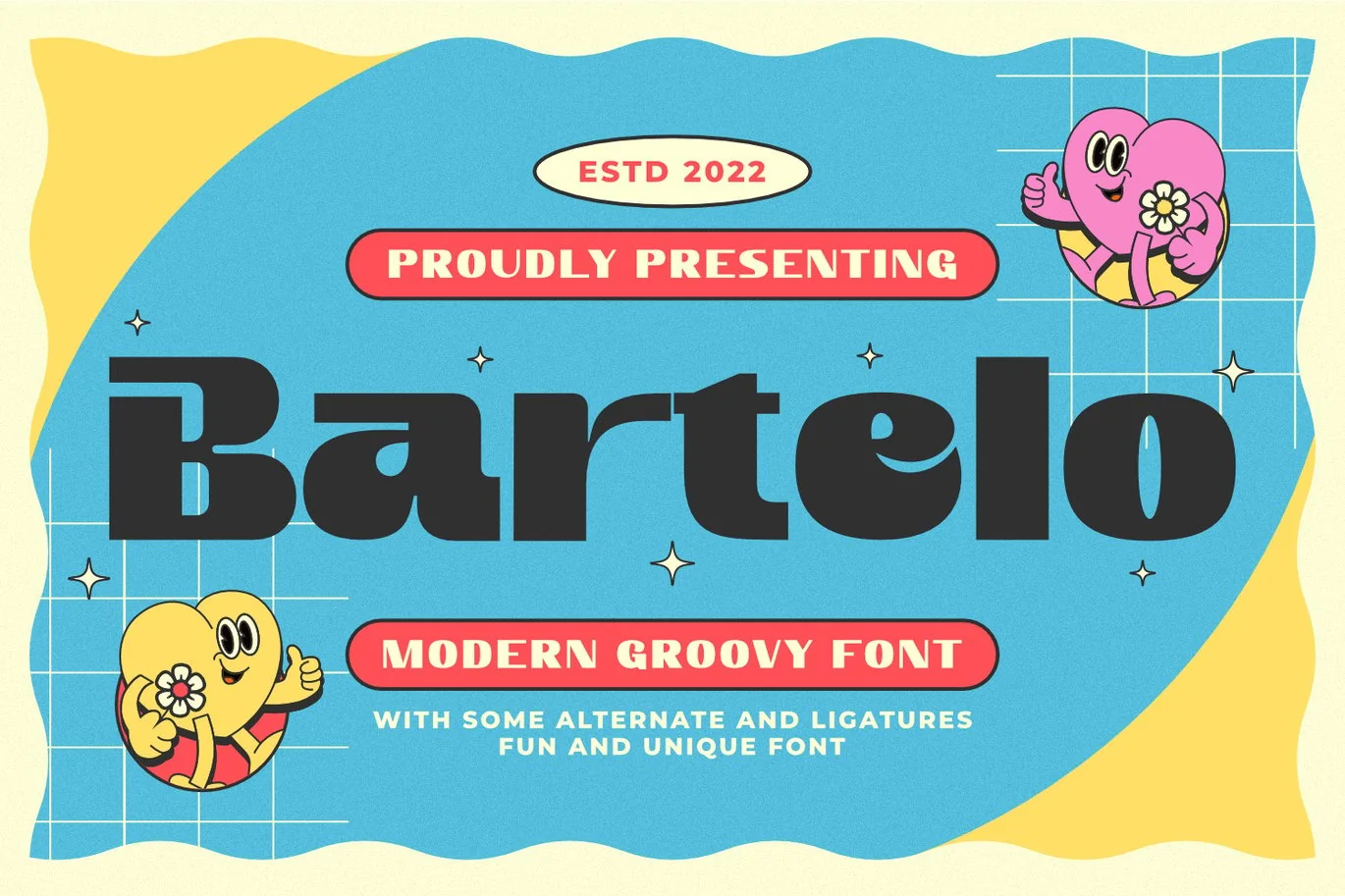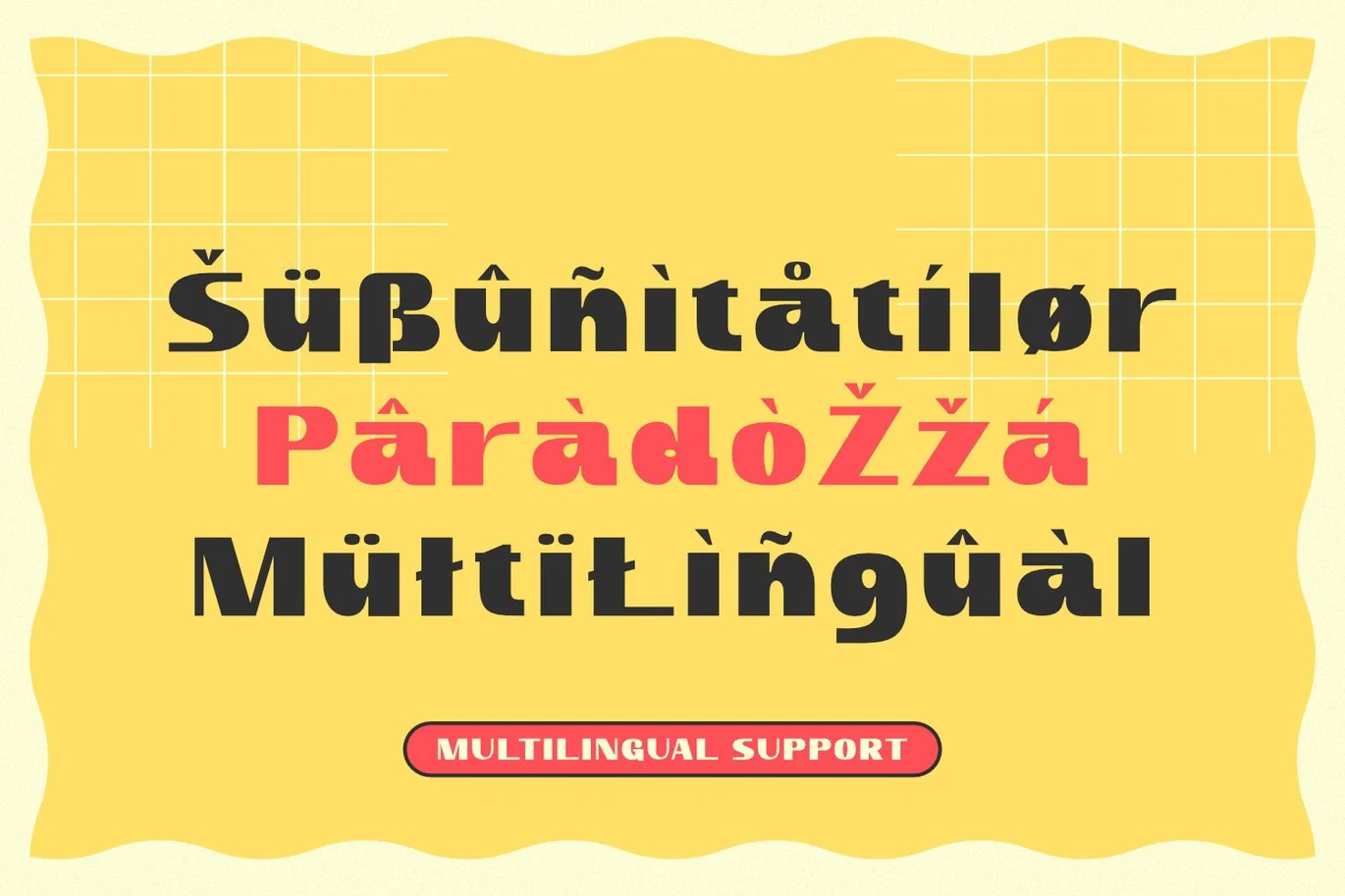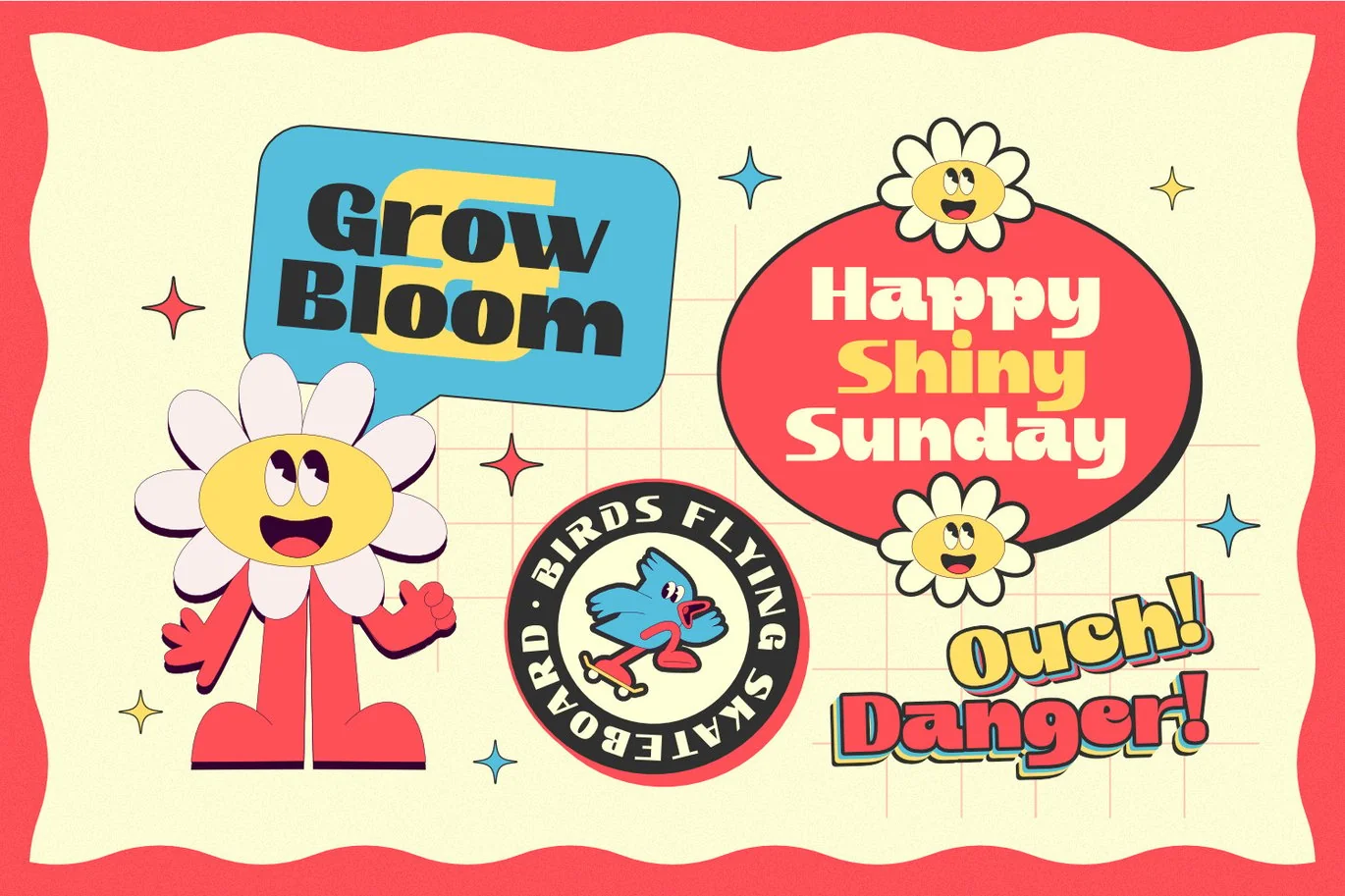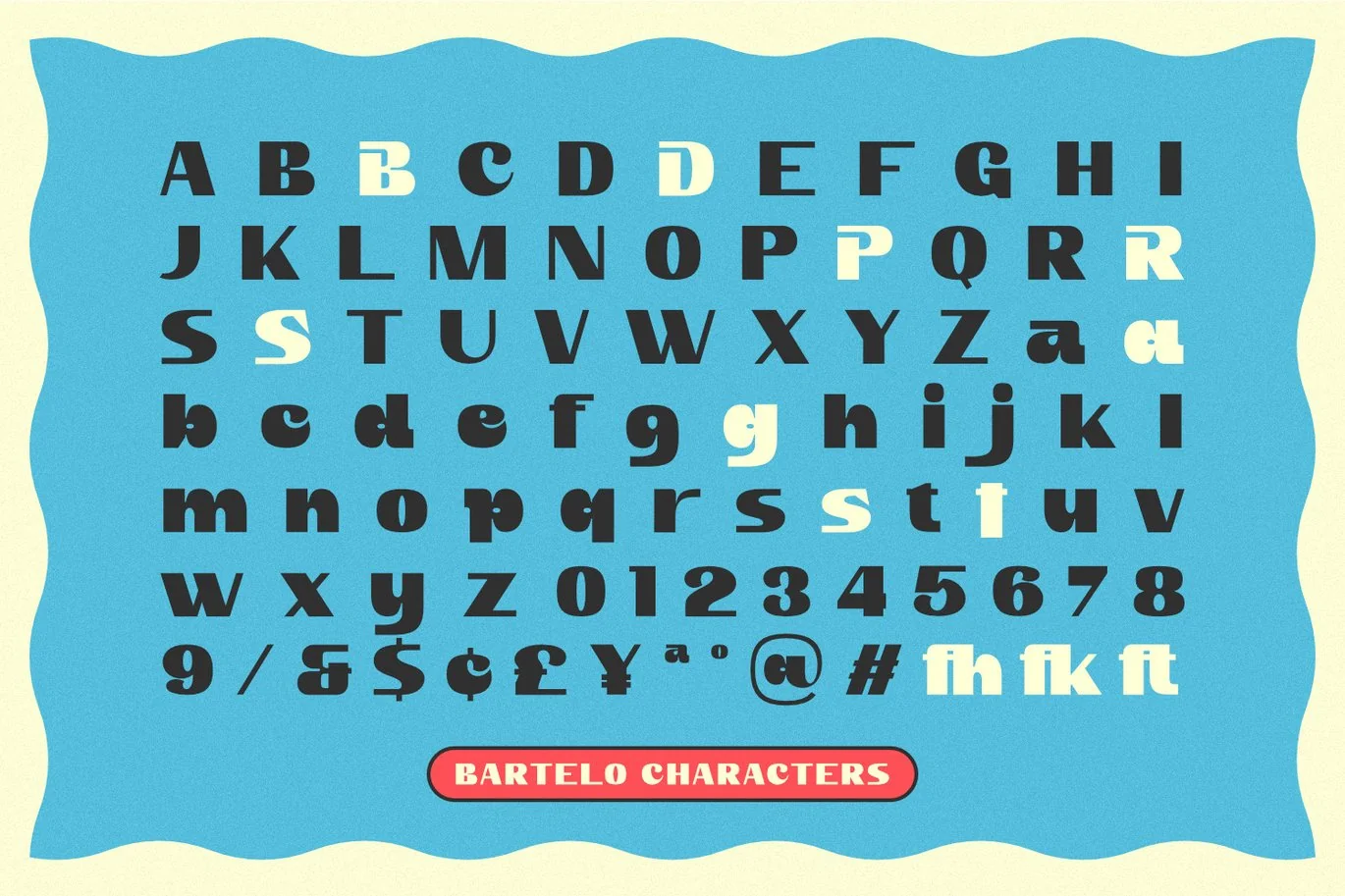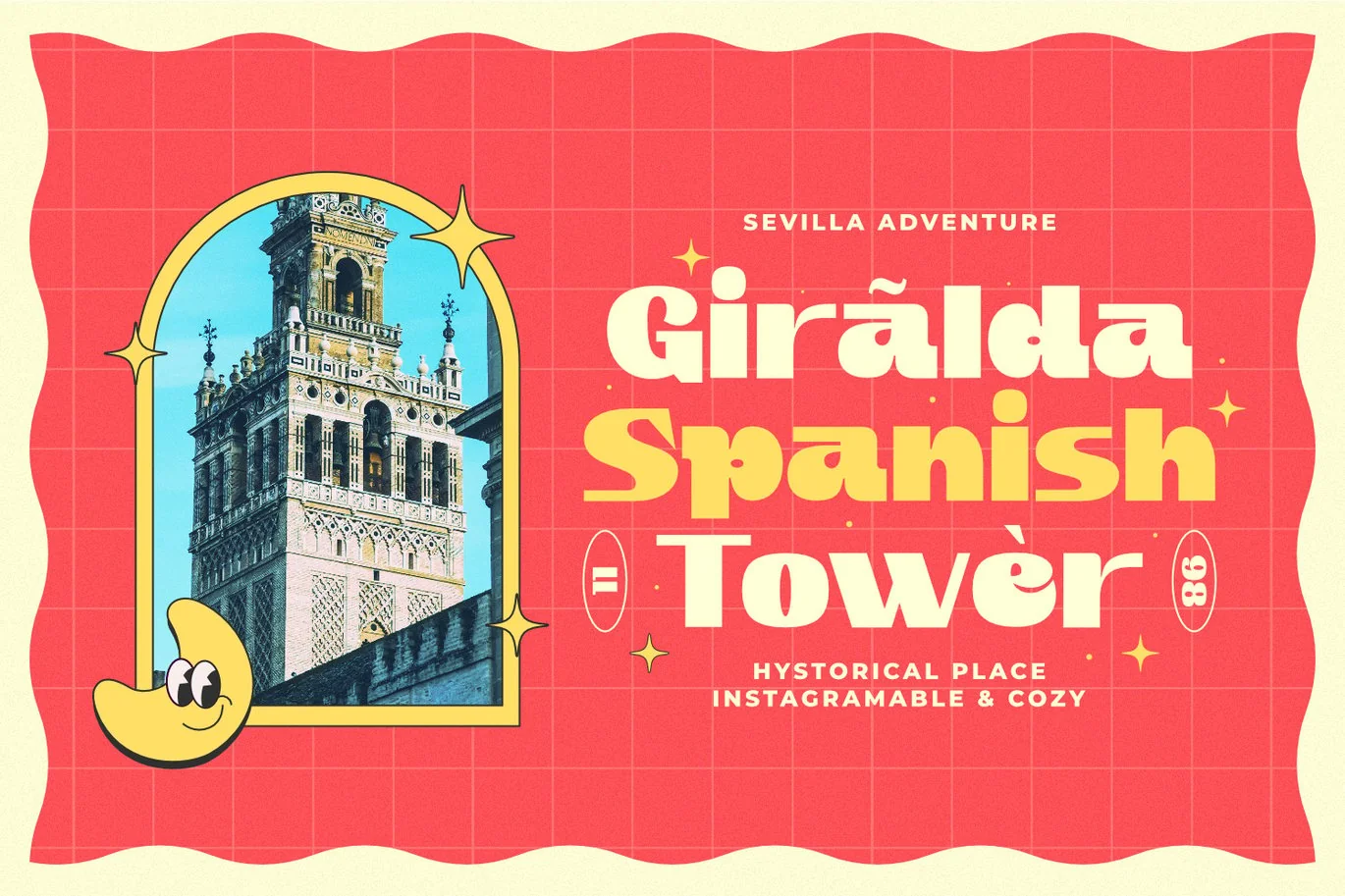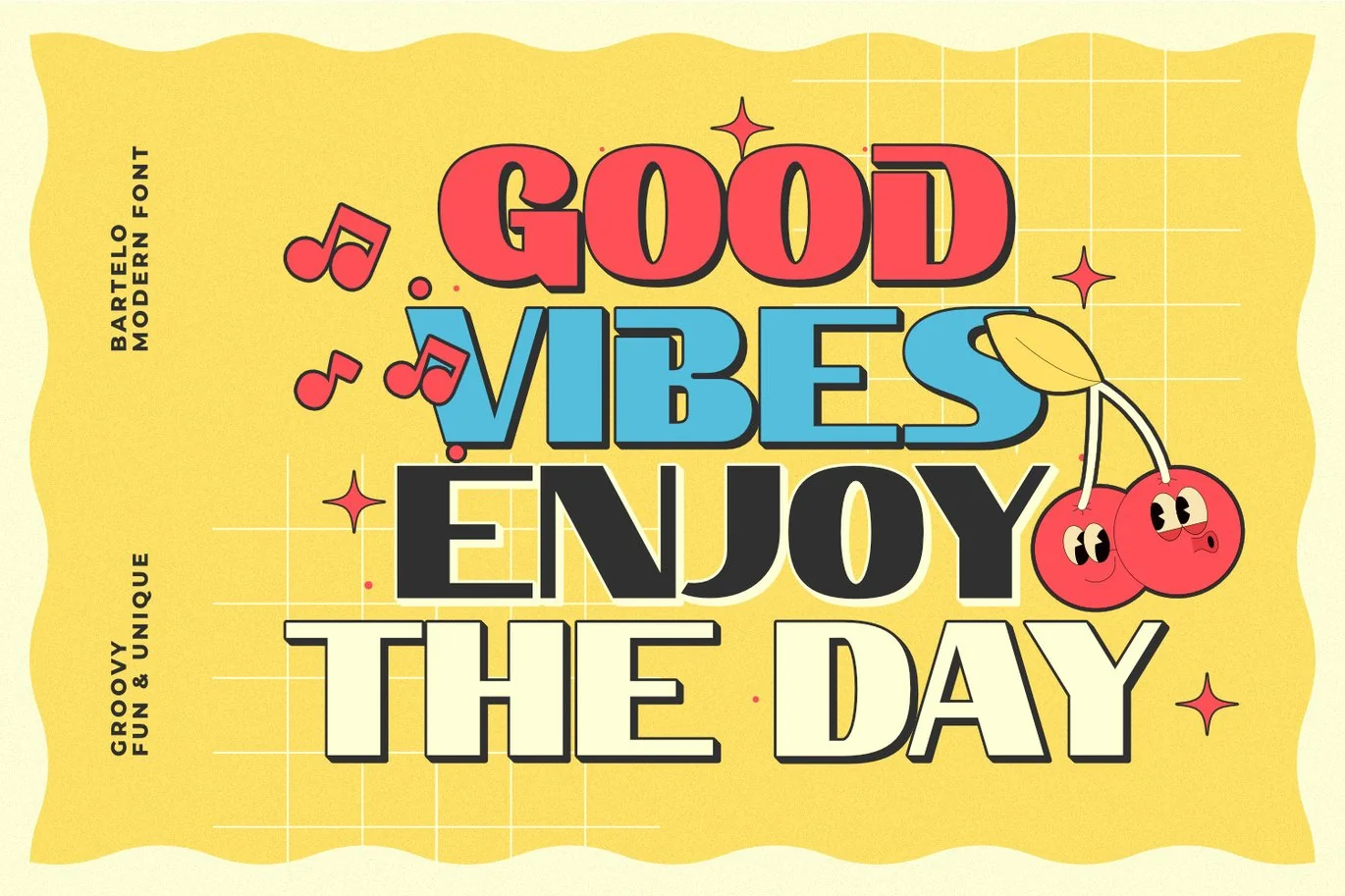
Bartelo – Modern Font
Presenting Bartelo Font is suitable branding, book, logo, magazine, quotes, poster, and etc. Our fonts have Uppercase & Lowercase, Numeral & Punctuation, Multilingual support and Opentype Features. For Amazing designs you can mix with other fonts as a complement.